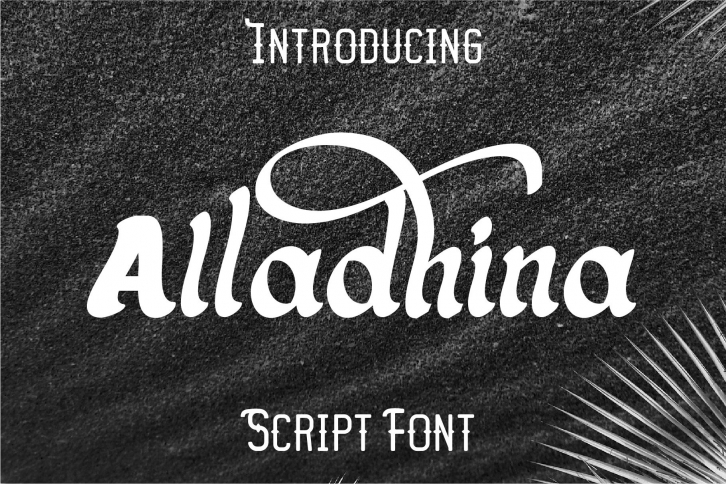
Meet my new font Alladhina
Alladhina Retro Vintage Script Font
Alladhina
Alladhina includes full set of lovely uppercase and lowercase letters, multilingual symbols, numerals and punctuation. This is so perfect for Vintage Design Style, Logo, Poster, etc